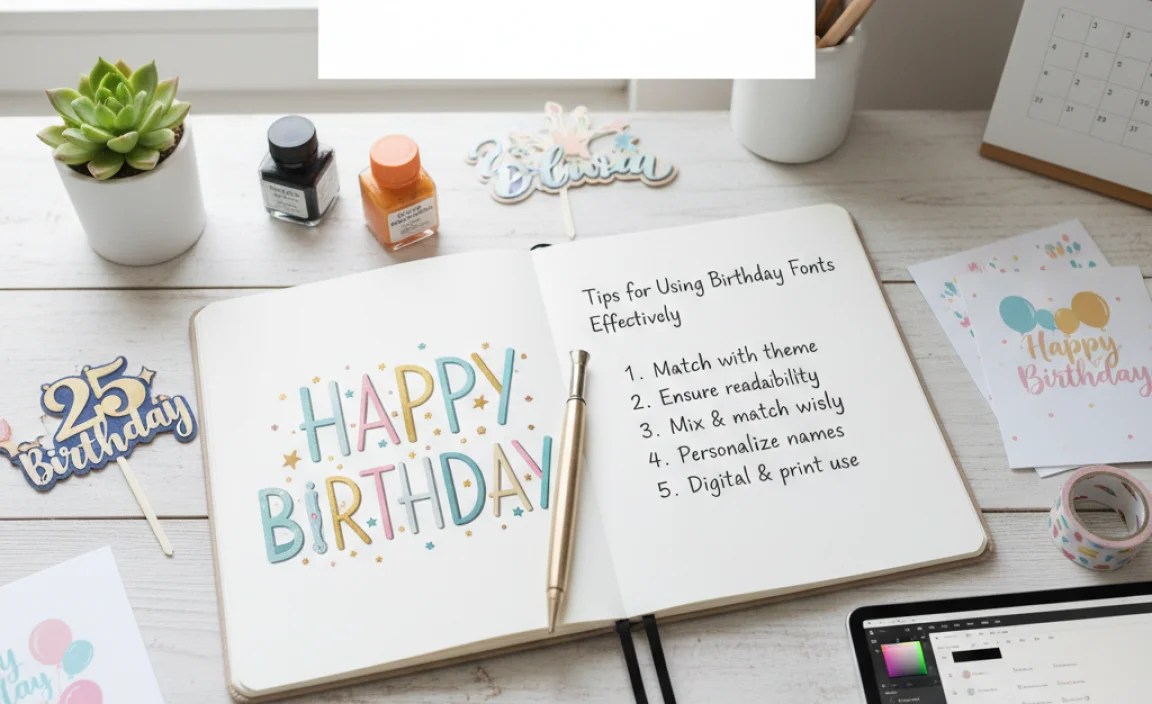
Transform your birthday projects with customized birthday fonts! Explore unique font pairings, creative lettering styles, and smart design tips to make celebrations visually unforgettable. From playful scripts to elegant serifs, discover genius ideas to elevate your invitations, decorations, and gifts.
Planning a birthday celebration is exciting! You’ve got the cake, the gifts, and the guest list. But have you thought about the visual magic? The fonts you choose can make your birthday invitations pop, your party banners stand out, and your gift tags feel extra special. Sometimes, standard fonts just don’t capture that unique birthday spirit. That’s where customized birthday fonts come in! We’re going to explore how to pick and use fonts that truly celebrate the person and the occasion. Get ready to make your next birthday bash a visual delight!
What Are Customized Birthday Fonts and Why Use Them?
Customized birthday fonts are all about adding personality and flair to your birthday designs. Think beyond the basic Arial or Times New Roman. These special fonts are designed to evoke feelings of fun, celebration, elegance, or whimsy, perfectly matching the birthday vibe. Using them means your invitations look more original, your decorations feel more personal, and your creative projects have a unique charm.
Why bother with customized fonts? Because they have the power to:
- Make a Strong First Impression: Your invitation is the first hint guests get of the party’s theme and tone. The right font sets the mood instantly.
- Showcase Personality: Fonts can reflect the birthday person’s style – are they playful and energetic, or sophisticated and classic?
- Enhance Readability (the Right Way!): While some display fonts are purely decorative, there are many wonderfully readable customized fonts that are also visually engaging.
- Create Brand Consistency: For businesses celebrating birthdays (anniversaries, product launches), custom fonts tie the celebration to their brand identity.
- Boost Creativity: They open up a world of design possibilities, encouraging you to think outside the box.
Genius Ideas for Customized Birthday Fonts
Let’s dive into some brilliant ways to use customized birthday fonts. These ideas are perfect for anyone, from seasoned designers to someone planning a child’s first birthday party.
1. The Playful and Whimsical Approach
For birthdays filled with laughter, excitement, and a touch of childhood magic, playful fonts are your best friend. Think bright colors, bouncy letters, and a general sense of fun.
- For Kids’ Parties: Use fonts that look hand-drawn, like crayon scribbles or bubbly letters. Many fonts mimic chalk art or have rounded, friendly shapes. Search for “kid-friendly fonts,” “fun fonts,” or “cartoon fonts.”
- For Fun-Loving Adults: Even adults enjoy a playful touch! Consider fonts with quirky serifs, uneven baselines, or a slightly retro feel. Think vintage circus posters or retro candy packaging.
- Pairing Ideas: Combine a bold, playful font for headlines (like the birthday person’s name) with a simpler, clean sans-serif font for the details (date, time, location) to ensure readability.
2. The Elegant and Sophisticated Choice
If the birthday celebration is a more formal affair, like a milestone birthday, a dinner party, or a chic cocktail event, elegant fonts are the way to go.
- Script and Calligraphy Fonts: These fonts mimic elegant handwriting and add a touch of luxury. Look for refined scripts that aren’t too ornate to ensure legibility. For official guides on calligraphy and typography, resources like the Getty Research Institute offer historical and artistic context.
- Classic Serifs: Timeless serif fonts with delicate strokes and a strong structure convey tradition and sophistication. They are excellent for formal invitations, menus, and place cards.
- Monograms and Initials: Using an elegant font for the birthday person’s initial or monogram can add a personal and distinguished touch to everything from cake toppers to thank-you notes.
- Pairing Ideas: A sophisticated script font for the name paired with a clean, classic serif for the event details creates a balanced and polished look.
3. The Modern and Minimalist Vibe
For a contemporary celebration, clean lines and stylish typography are key. Minimalism often speaks volumes.
- Geometric Sans-Serifs: These fonts are based on simple shapes like circles and squares. They are incredibly versatile and project a modern, chic feel.
- Thin and Light Fonts: Using lighter weights of sans-serif or even serif fonts can lend an airy, sophisticated, and modern aesthetic.
- Bold and Blocky Sans-Serifs: For a bolder, statement-making modern look, consider thick, unadorned sans-serif fonts for headlines.
- Pairing Ideas: A striking, bold sans-serif for the “Happy Birthday” message combined with a light, airy font for the rest of the text makes for a visually dynamic yet uncluttered design.
While creating a full font takes significant time and skill, hand-lettering specific words or phrases for a key design element can add an unparalleled level of personalization.
FAQ on Customized Birthday Fonts
What is the difference between a font and a typeface?
A typeface is the design of the letters (e.g., Helvetica). A font is a specific file of that typeface, in a specific weight and style (e.g., Helvetica